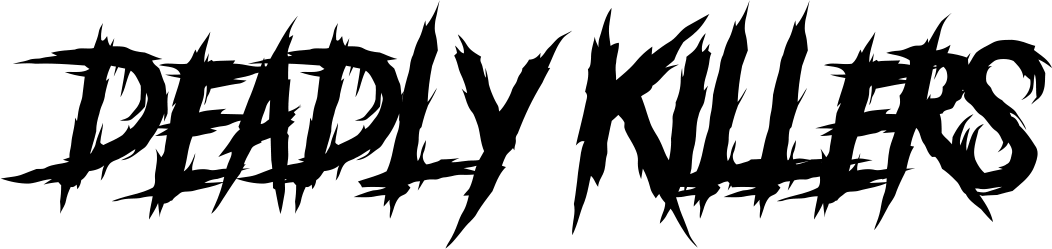
Deadly Killers Font
At times, when you are writing horror and thrilling comic books, novels, or webtoons you need a horror font like Deadly Killers to top it all and reveal the genre of your work on the cover of the book, or the title of your webtoon!
Deadly Killers gives off scary, creepy vibes as all the horror fonts do. It comes in all caps only and doesn’t cover any numbers or punctuation. Use these rough, stressed, prickly letters to make scary headlines!